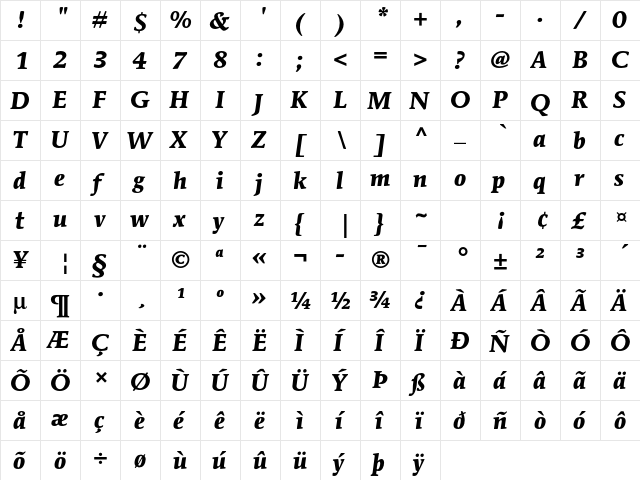
ITC Mendoza Roman Std Bold Italic Font Preview
| Designer | JosΠMendoza |
Design Context for ITC Mendoza Roman Std Typeface
ITC Mendoza Roman Std offers clean, dependable letterforms without strong stylistic allegiance, making it a practical choice for designers who need flexibility. Its italic angle brings a sense of urgency and motion to the letterforms. The heavy weight commands attention and anchors typographic hierarchies.
Pro Tip: Try ITC Mendoza Roman Std for annotation and caption copy alongside an upright companion — the contrast in angle creates a dynamic but ordered typographic system.